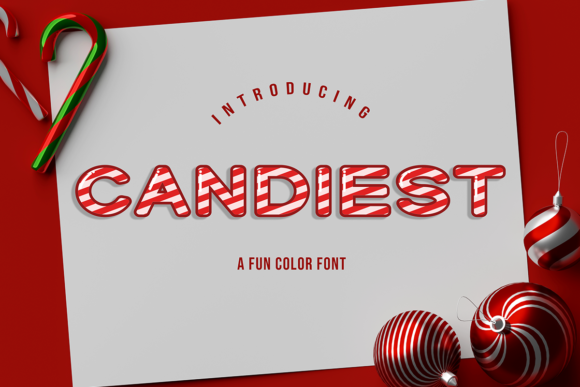
Introducing Candiest Font, the playful and vibrant display font from FOLV that will add a touch of fun and creativity to your designs. Let your imagination dance with the flow of its characters, designed to evoke a sense of joy and inspire your creative projects.
Step into a world of visual delight with Candiest Font, where letters intertwine with an effortless charm, inviting you to express your ideas with a unique and eye-catching style. Whether you're crafting inspirational wall posters, designing captivating logos, or adding a personal touch to your brand's communication, Candiest Font is your perfect companion.
Immerse yourself in a world of limitless possibilities with Candiest Font. Its whimsical nature and cool vibe make it the perfect choice for injecting life into creative projects. Whether you're a seasoned designer or just starting your creative journey, Candiest Font will elevate your work to new heights.
With Candiest Font as your creative ally, you'll embark on a journey of visual exploration, transforming ordinary words into captivating expressions. Its unique and memorable style will leave a lasting impression on your audience, evoking emotions and sparking imaginations.